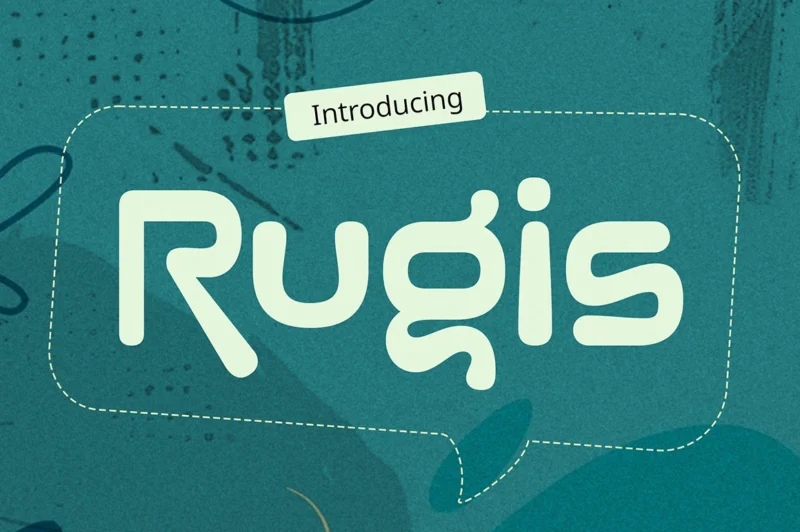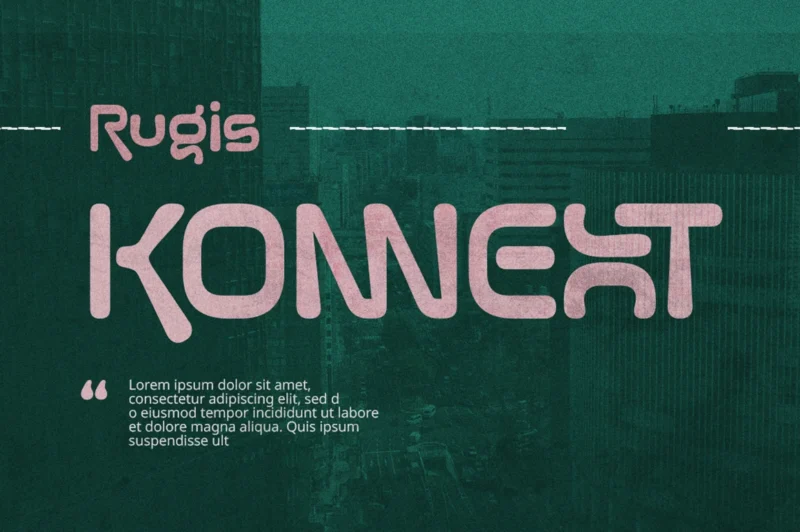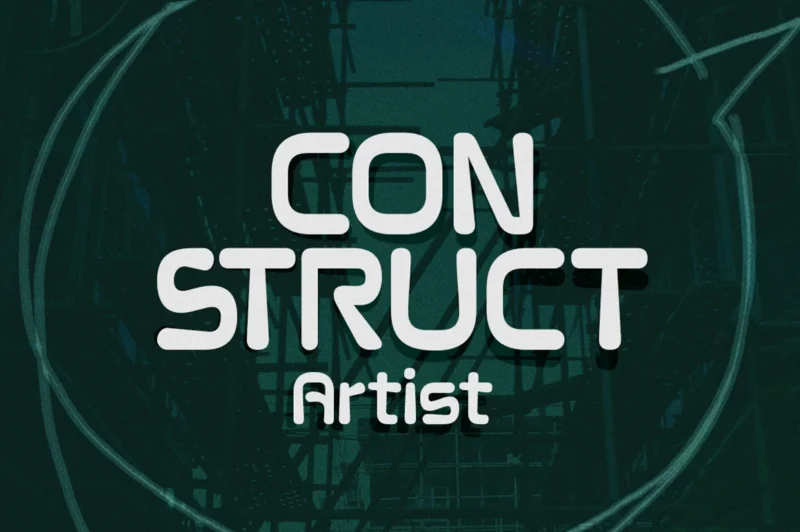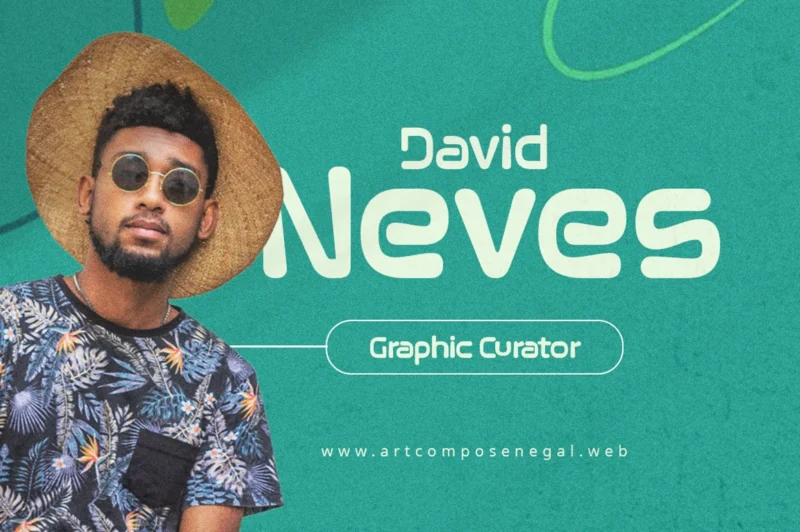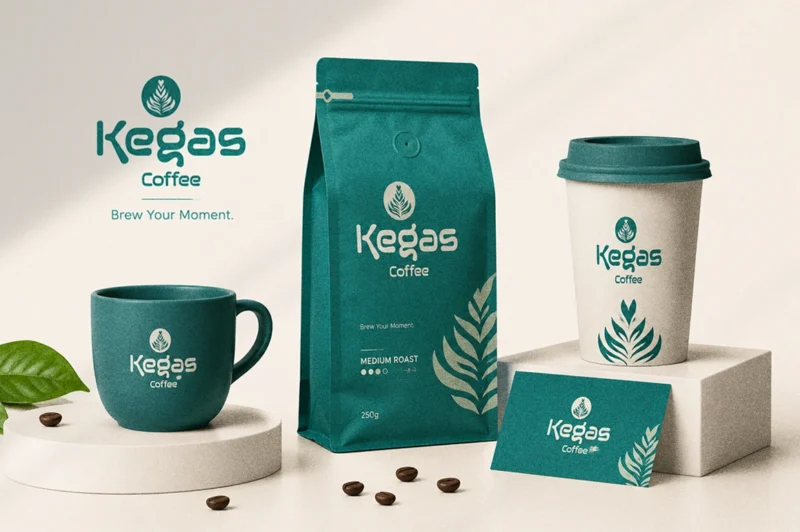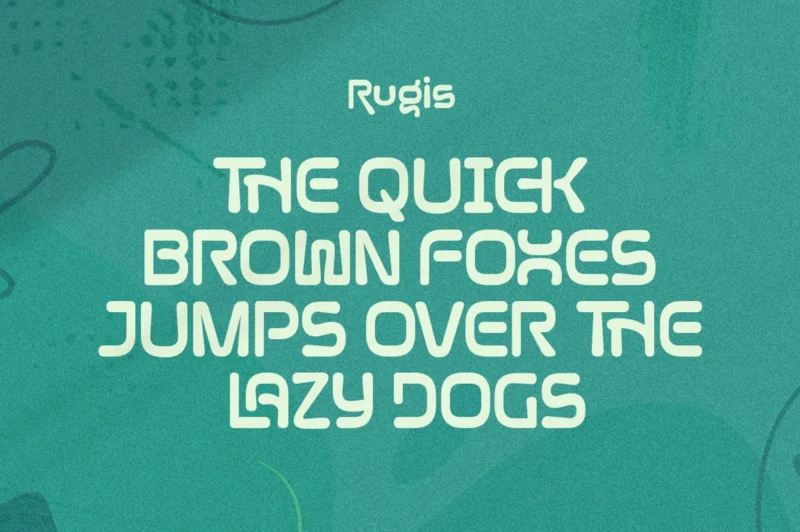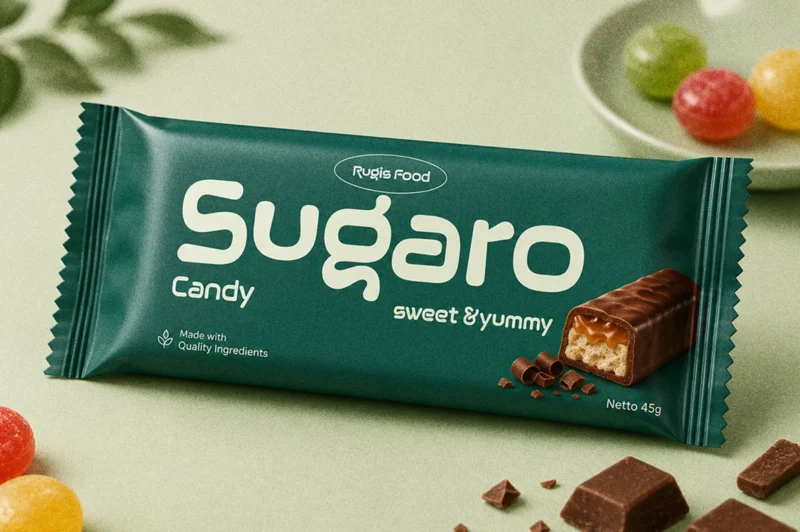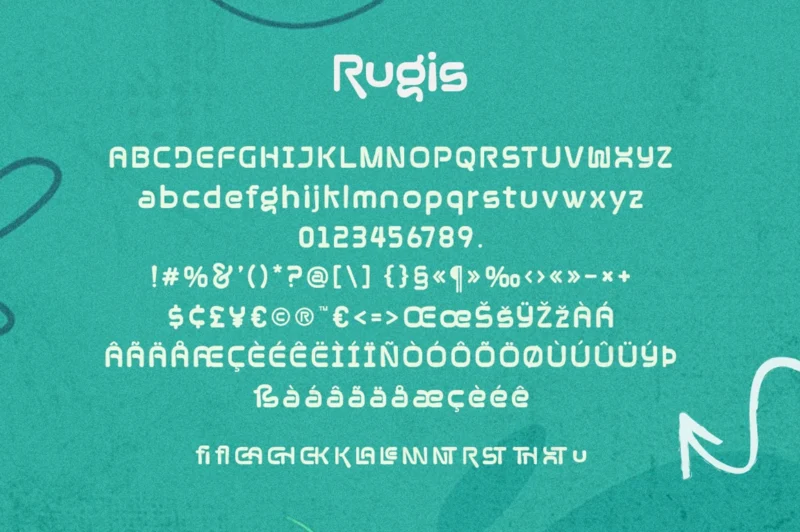
Rugis is a modern rounded sans serif typeface with a clean, friendly, and distinctive personality. Its smooth curves and balanced shapes make it perfect for eye-catching headlines, memorable logotypes, and contemporary branding. Complete with stylish ligatures, Rugis adds a unique touch while keeping every design fresh, simple, and effortlessly modern.
- Basic Latin Glyphs
- Unique Sans Serif Font
- Ligatures & Alternates
- Numeral and Punctuation
- Currencies
- Multilingual Support